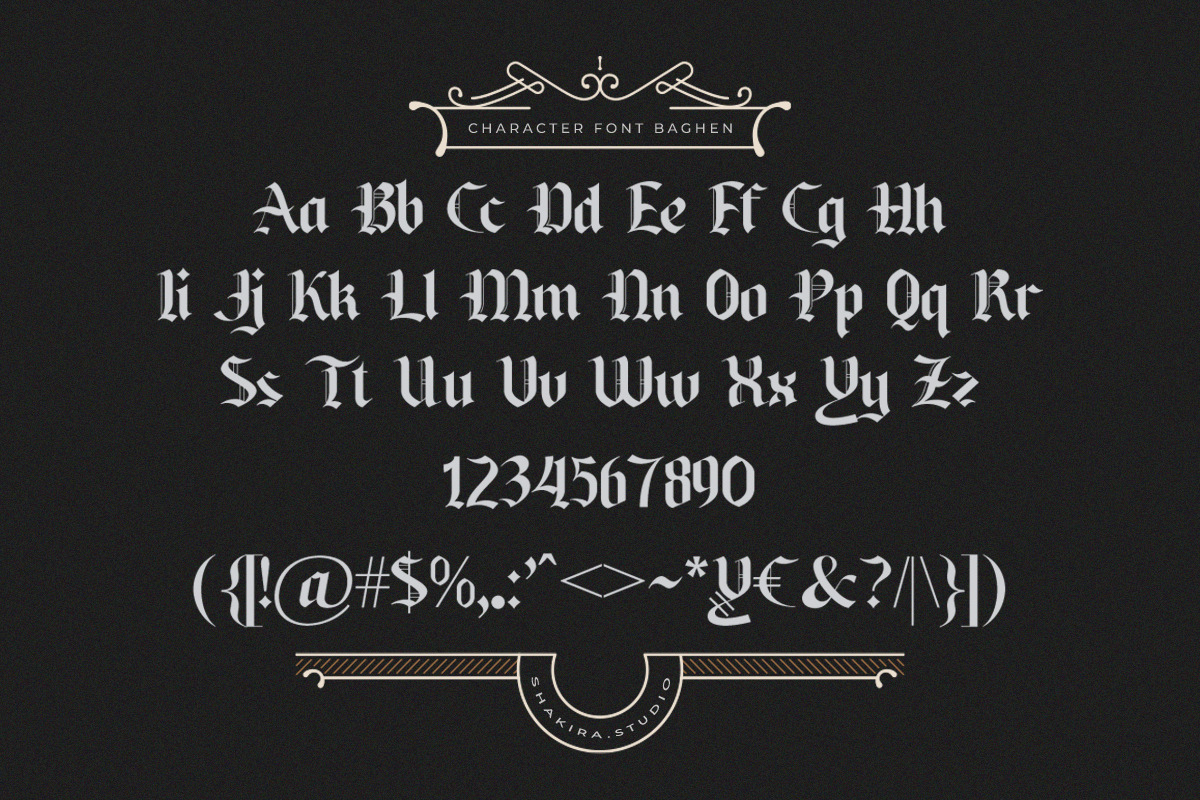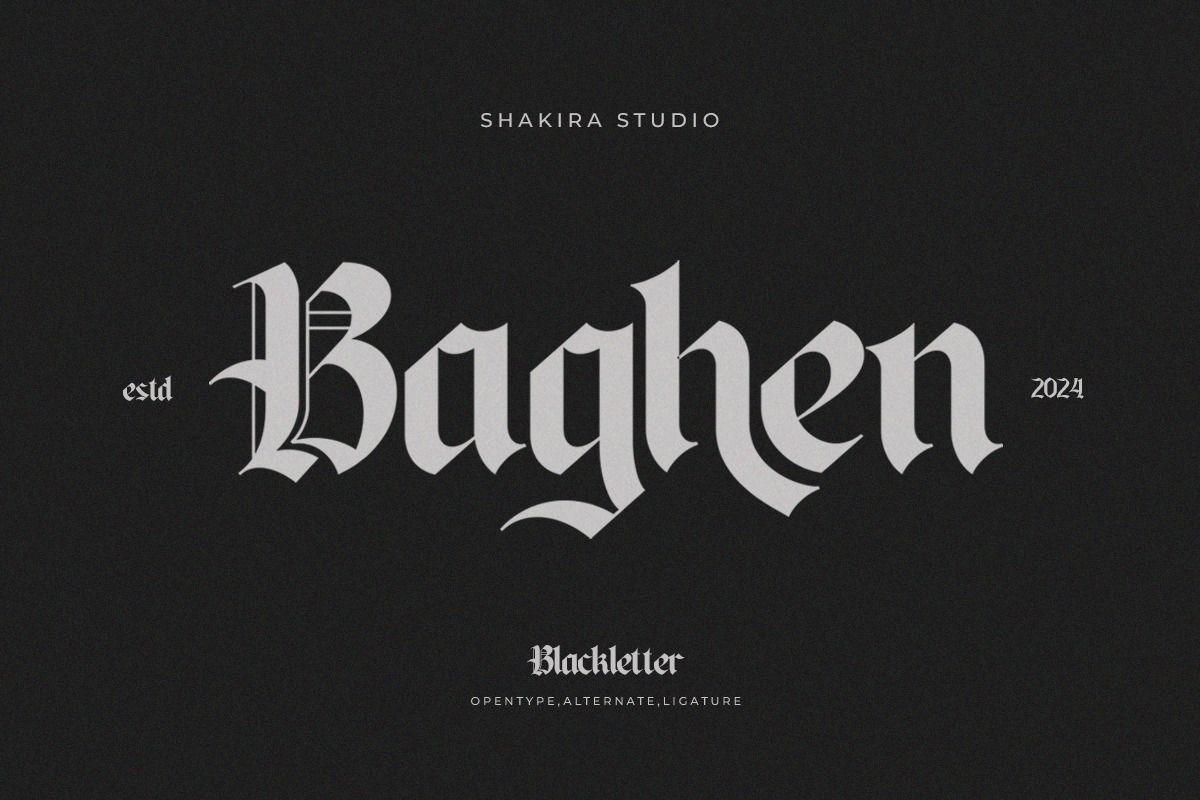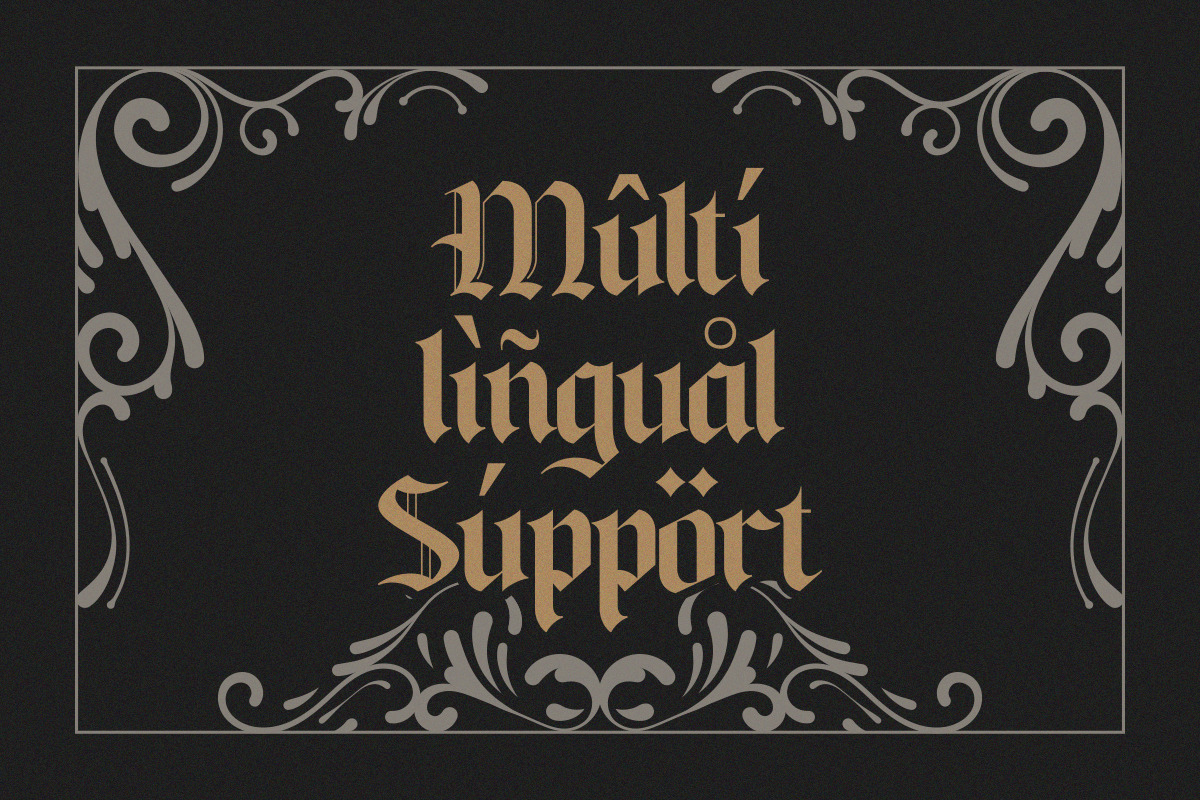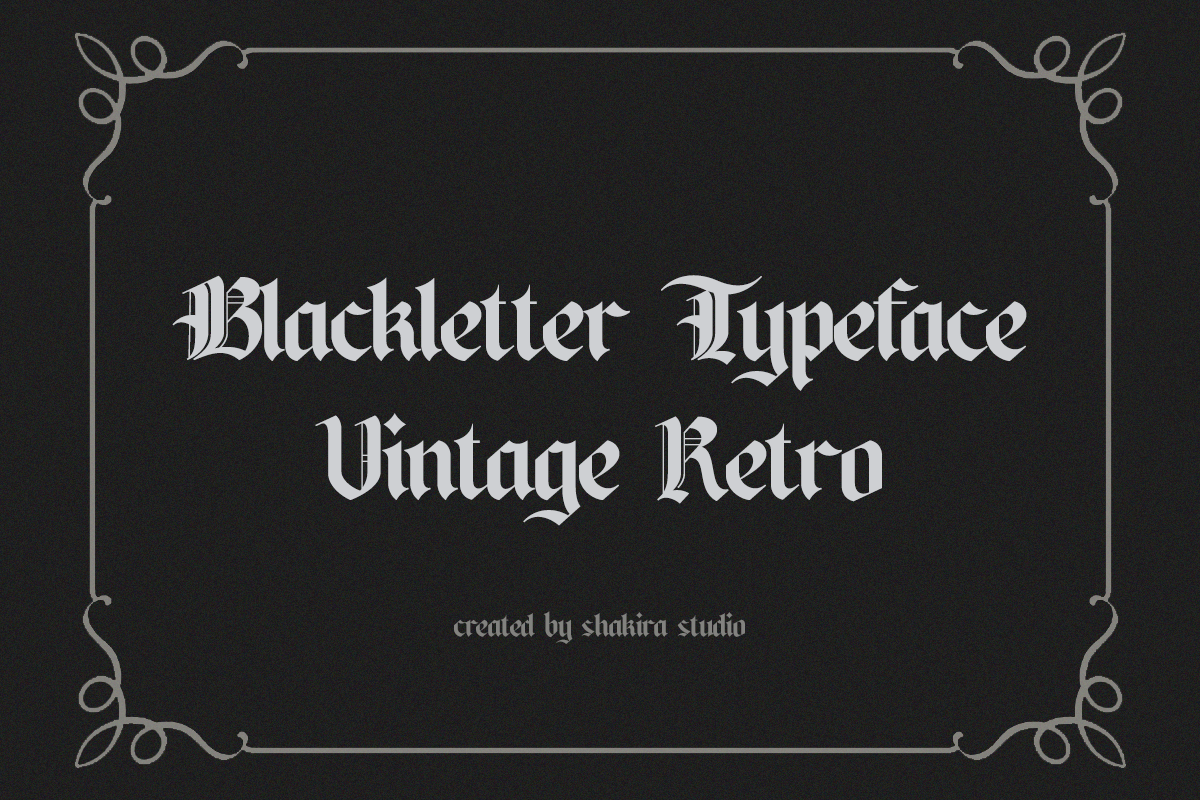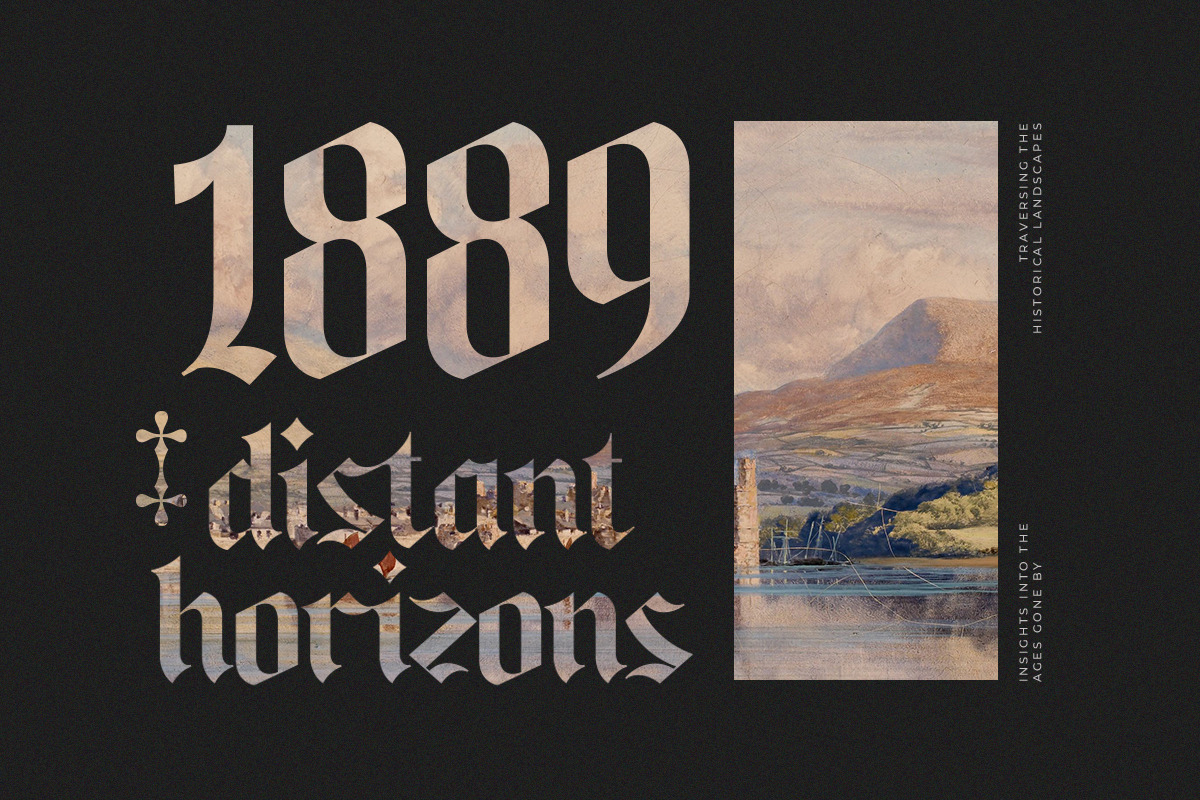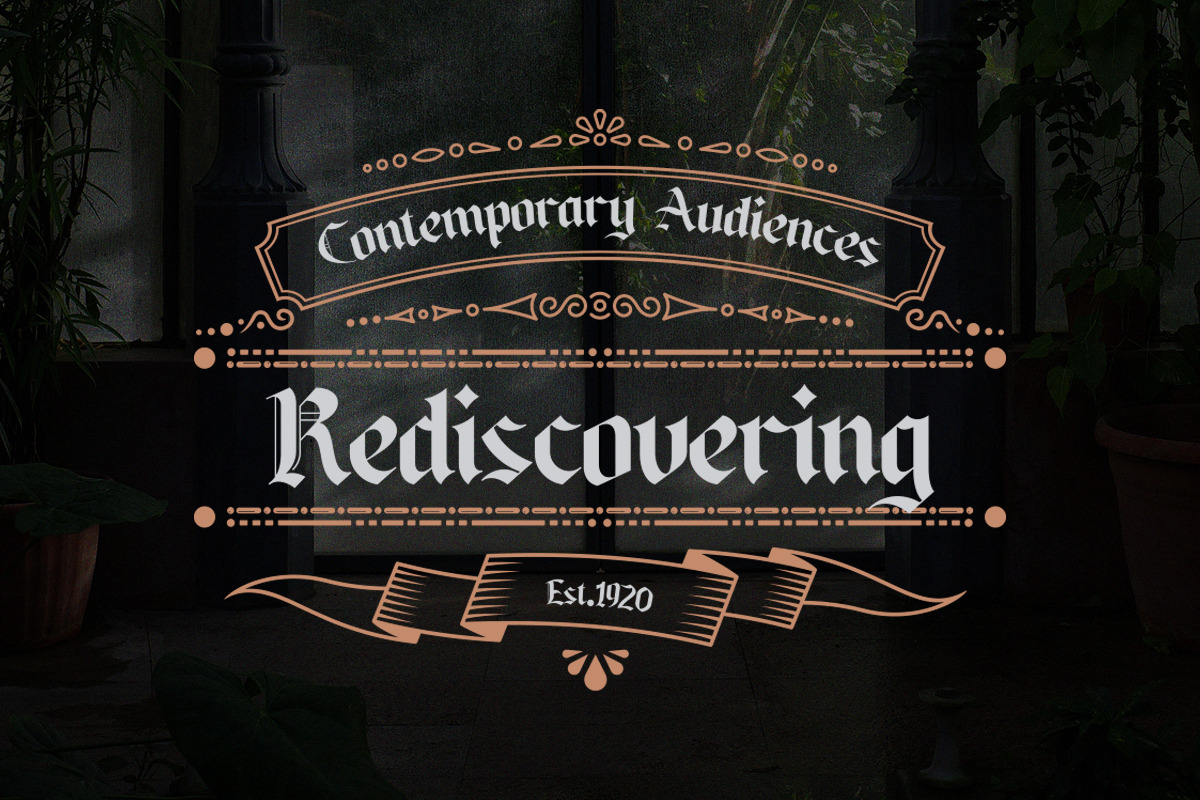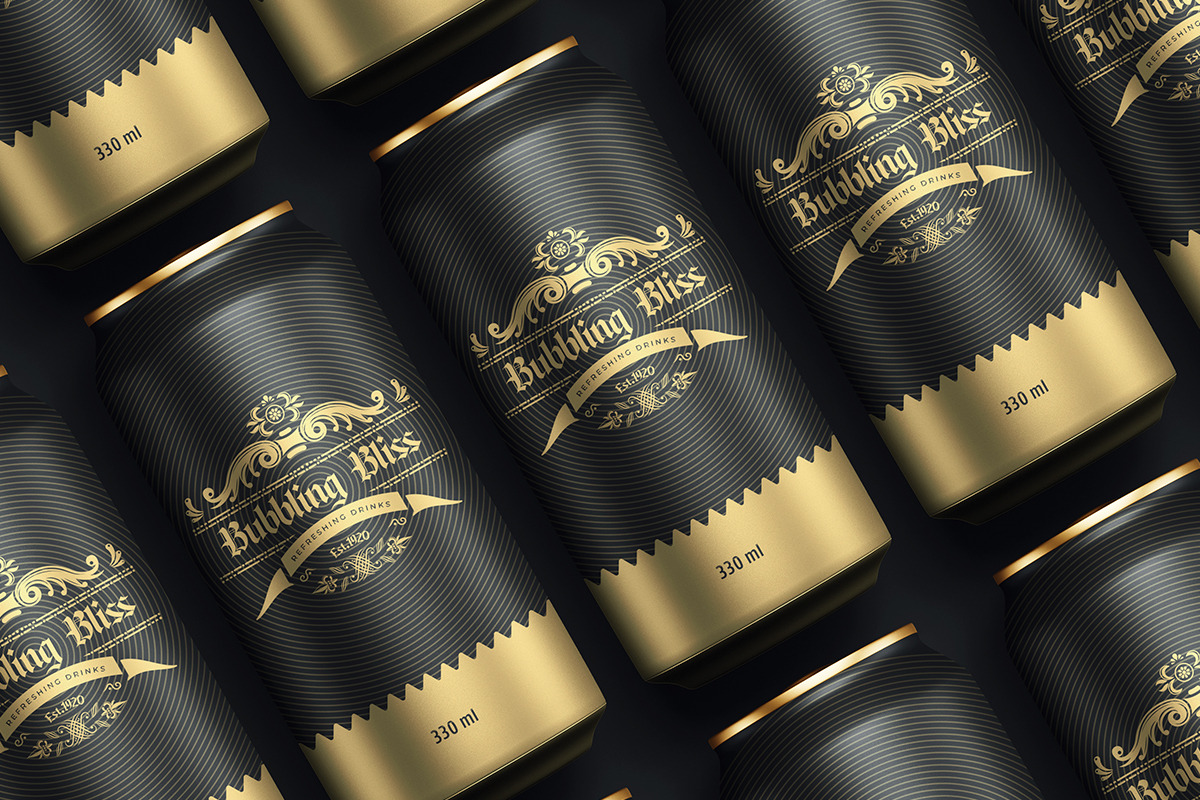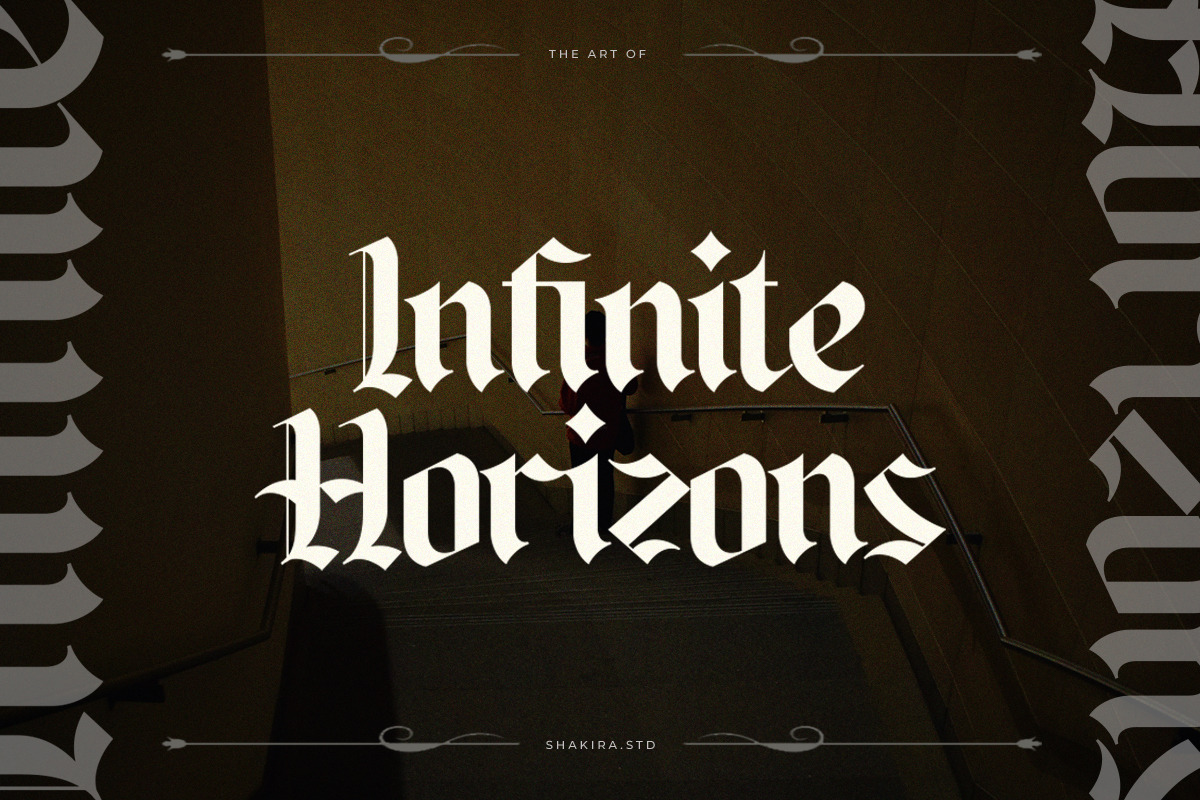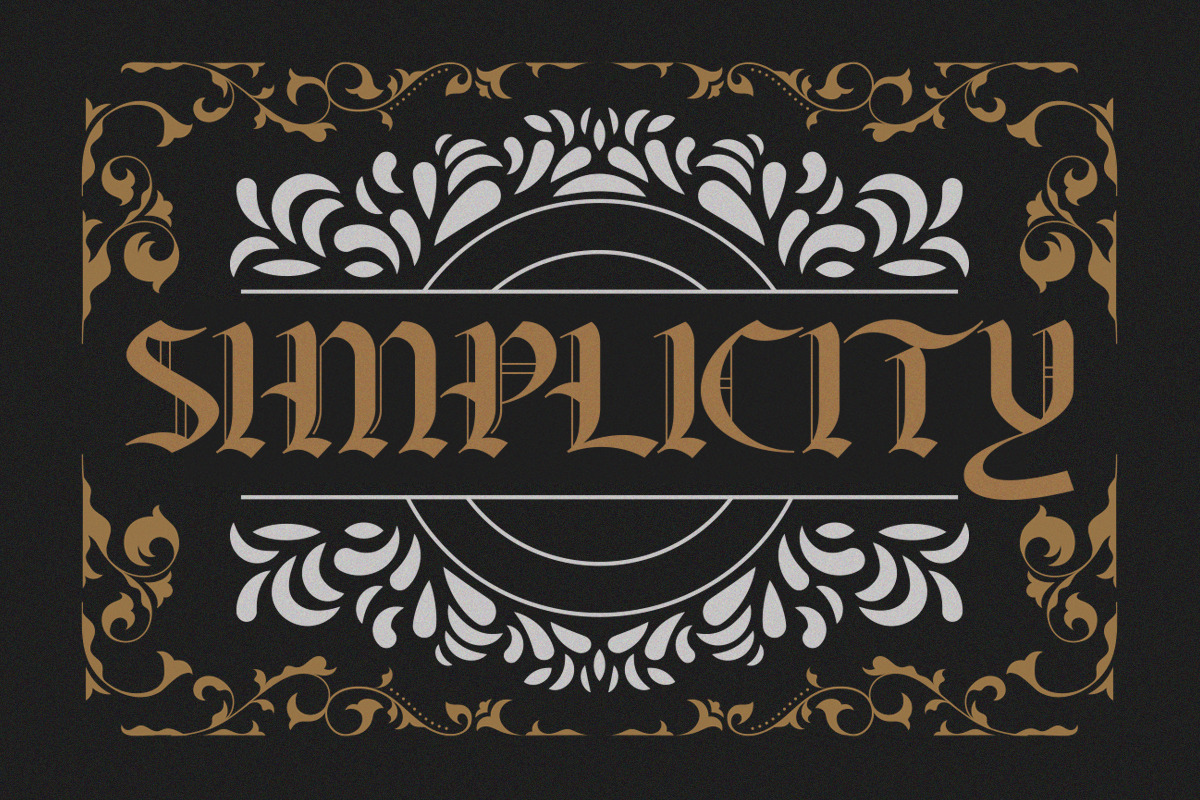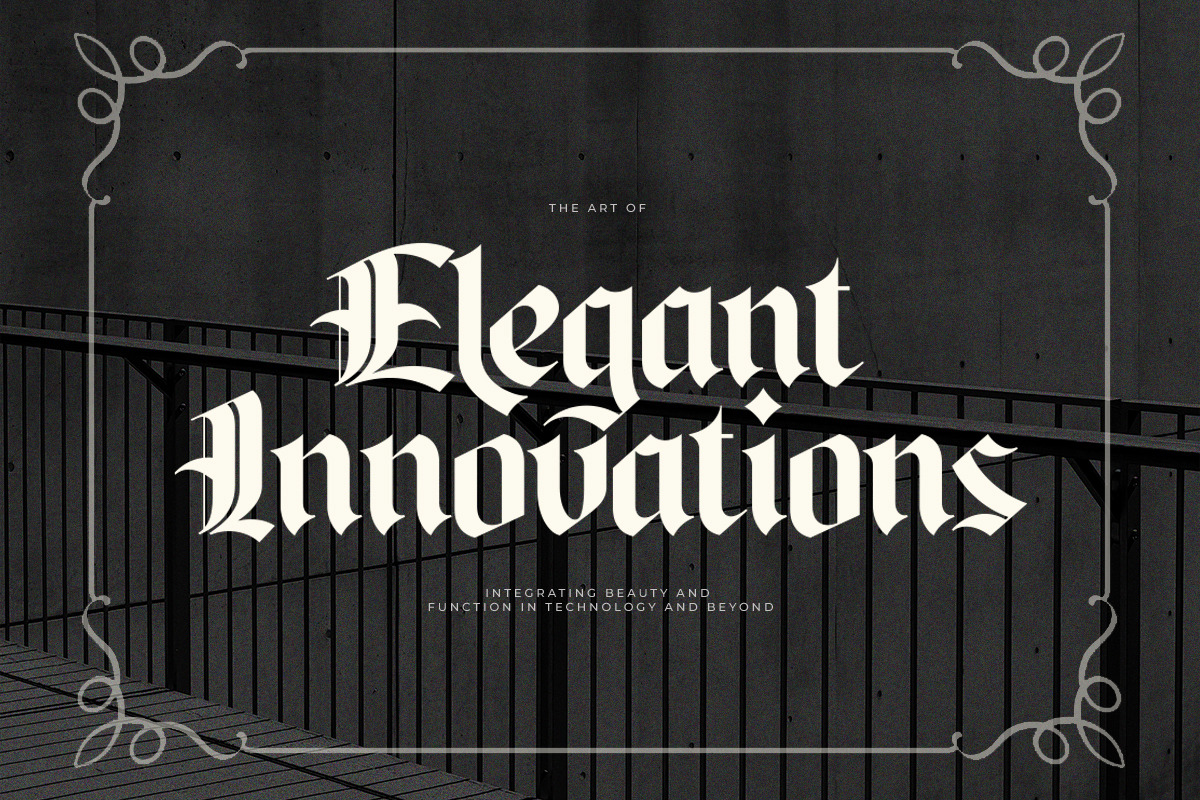
Baghen - Blackletter typeface
Introducing Baghen - Embrace the Timeless Charm of Old English Blackletter Font!
Baghen is not just a font; it's a journey back in time to the elegance of Old English script. With its classic appearance and intricate details, Baghen brings a touch of historic sophistication to your designs.
Crafted for designers seeking to infuse their projects with a sense of tradition and authenticity, Baghen embodies the essence of #BlackletterFonts and #VintageTypography.
With its ornate flourishes and vintage appeal, Baghen is perfect for creating invitations, signage, and branding materials that demand attention and evoke a sense of timeless beauty.
Elevate your designs with Baghen and let its old-world charm transport your audience to a bygone era of elegance and refinement. #BaghenFont #ClassicElegance #DesignExcellence"
- All Multilingual symbol
- Opentype features ( ligature, alternate )
Multilingual character supports : (Afrikaans, Albanian, Catalan, Croatian, Czech, Danish, Dutch, English, Estonian, Finnish, French, German, Hungarian, Icelandic, Italian, Lithuanian, Maltese, Norwegian, Polish, Portuguese, Slovenian, Spanish, Swedish, Turkish, Zulu)